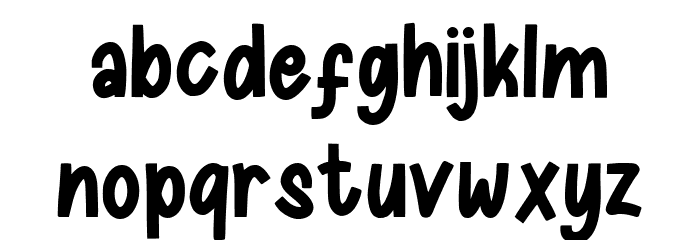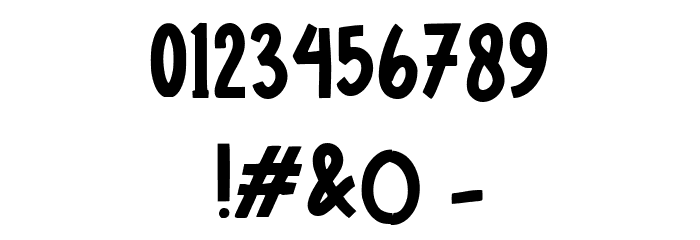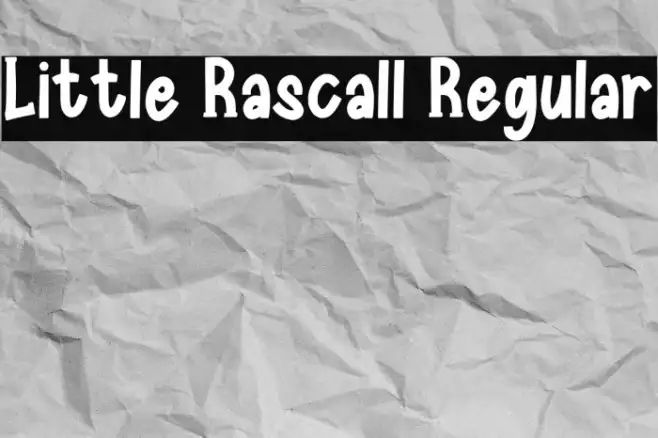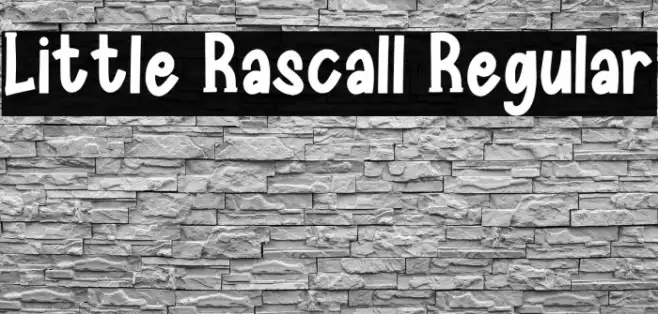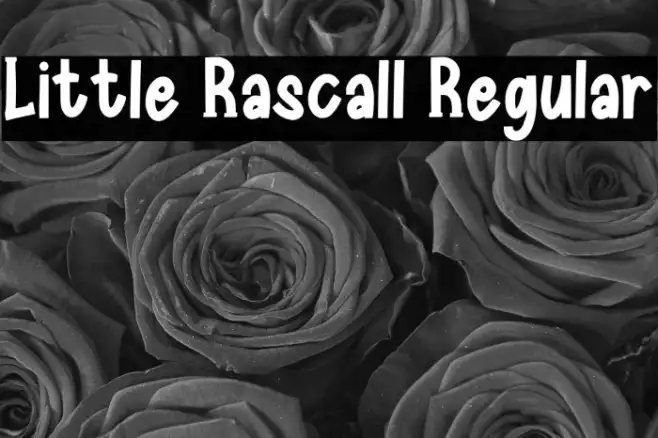
Little Rascall Regular Font
This playful and whimsical font features bold, irregular strokes that give it a hand-drawn appearance. The uppercase letters are slightly uneven, adding to its charm and informal style. The lowercase letters maintain a consistent height, with rounded edges that enhance its friendly and approachable feel. Numbers and special characters are designed with the same playful aesthetic, making it versatile for various creative projects. The overall style is casual and fun, perfect for designs that require a touch of personality and uniqueness.
A playful, hand-drawn font with bold, irregular strokes and a whimsical style.
- Proposed Projects: Ideal for children's books, playful branding, greeting cards, and casual invitations.
- Overall Style: Whimsical